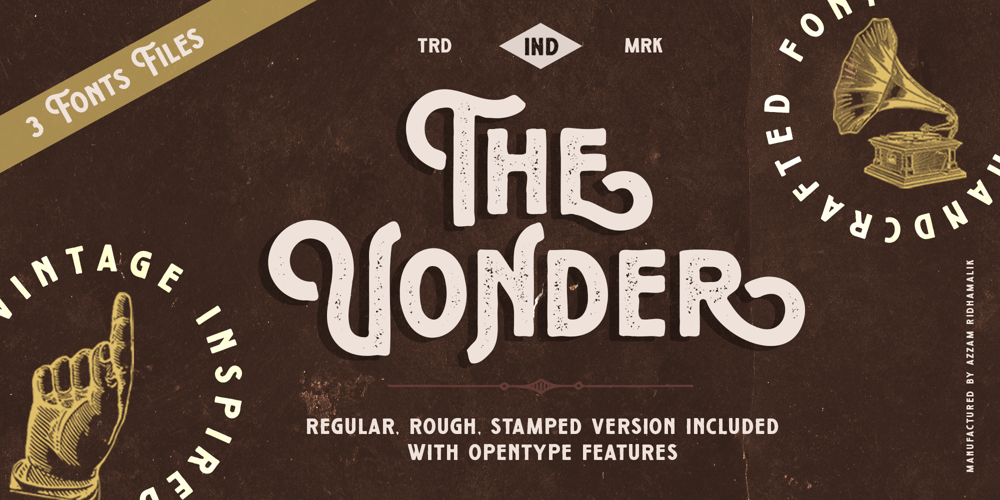
Vonder
Vonder font
Vonder Font Family was designed by Azzam Ridhamalik and published by Azzam Ridhamalik. Vonder contains 3 styles and family package options. Vonder is an awesome vintage font. It has three different styles (Regular, Rough, Stamped). This font really match for your project with retro/vintage theme, Perfectly made to be applied especially in logo, and the other various formal forms such as invitations, labels, logos, magazines, books, greeting / wedding cards, packaging, fashion, make up, stationery, novels, labels or any type of advertising purpose.FEATURES : Uppercase Lowercase Number Punctuation Multilingual PUA Encode Opentype